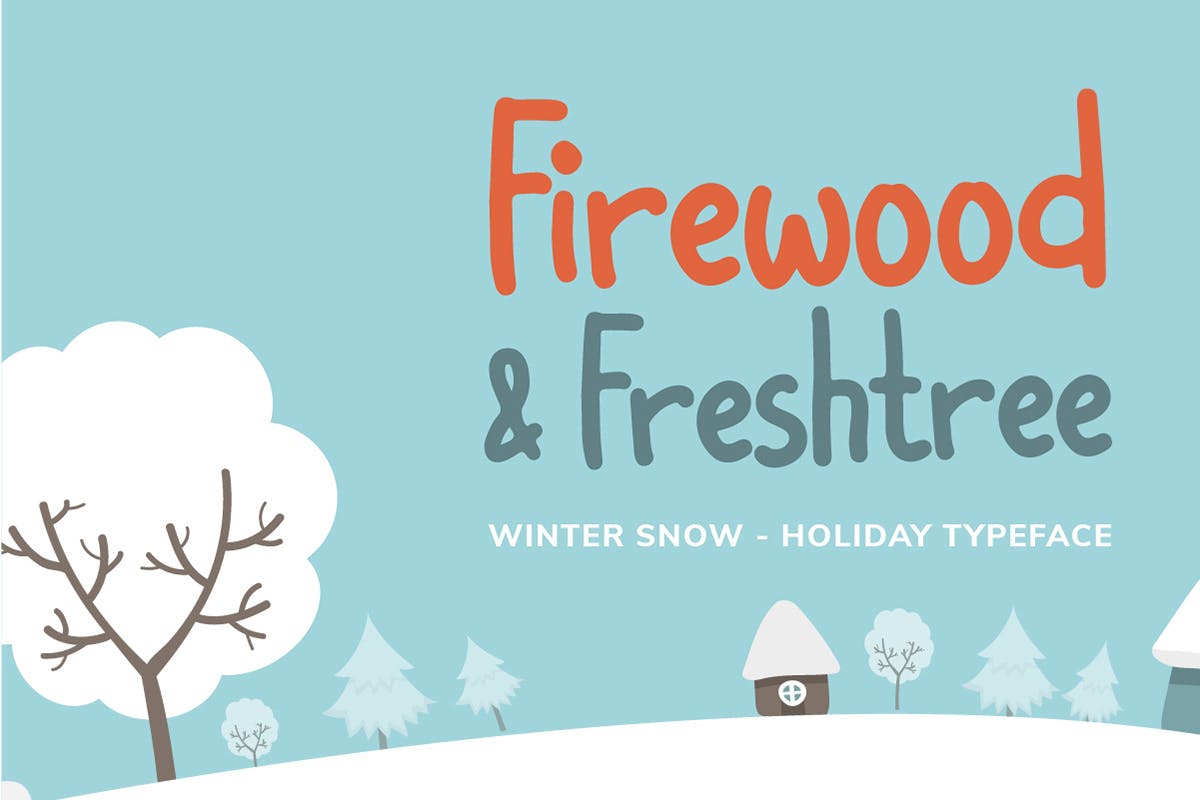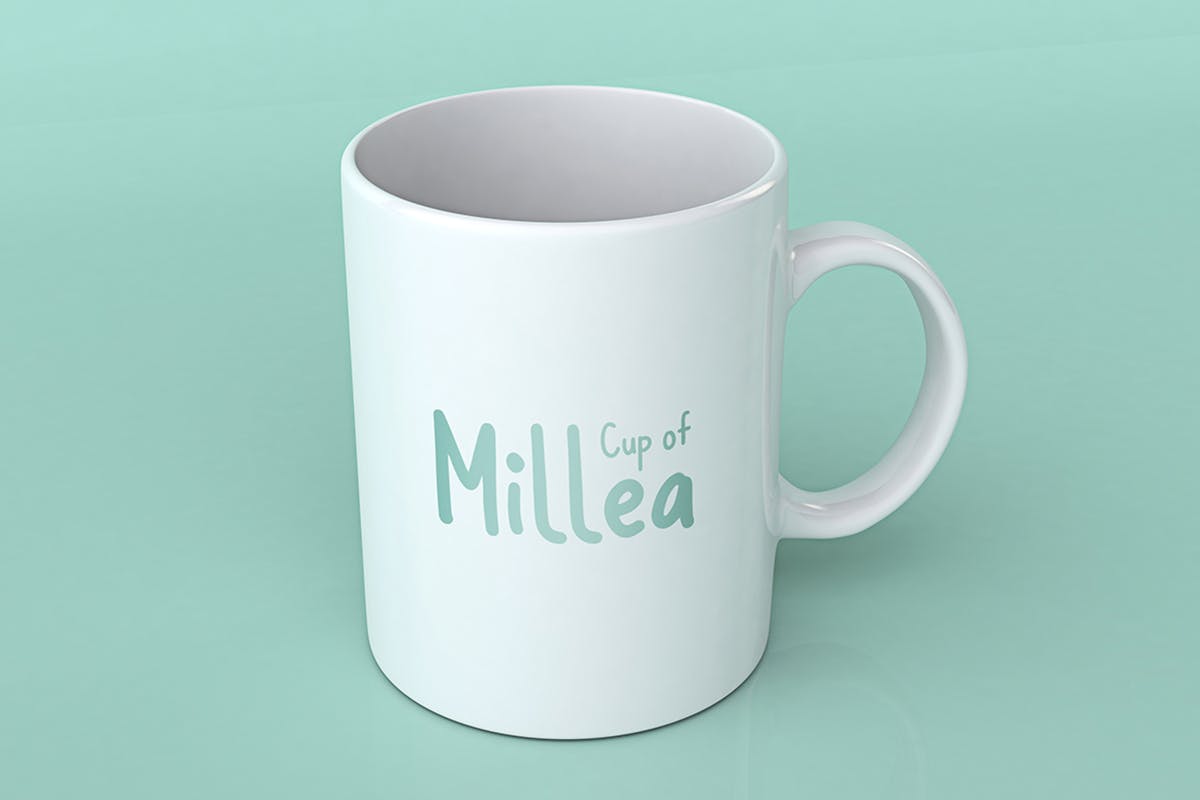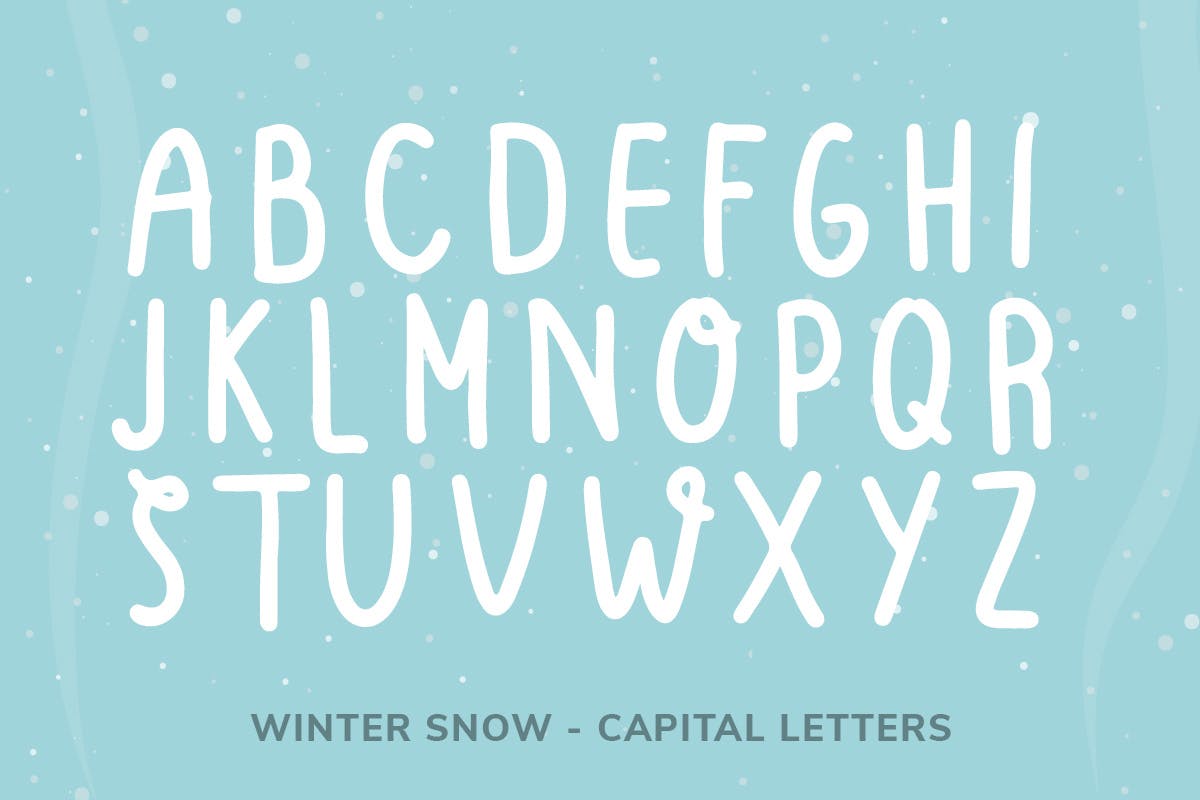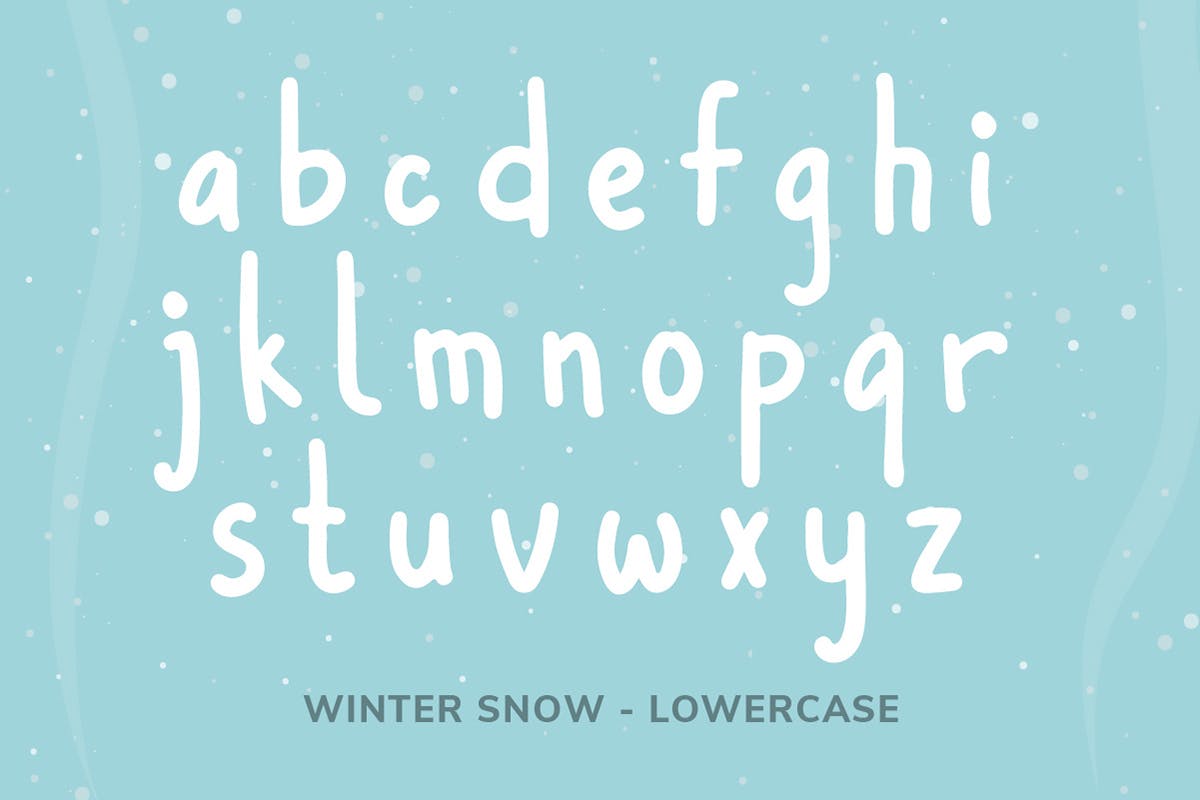
Free Winter Snow Display Font
Free Winter Snow Display Font is a marvelous font that inspiring to holiday mood and new year.  It is also a playful font that you can be useful to your projects such as a cover book, banner, flyer, gift card, and more. However, this font is only available for personal use license.